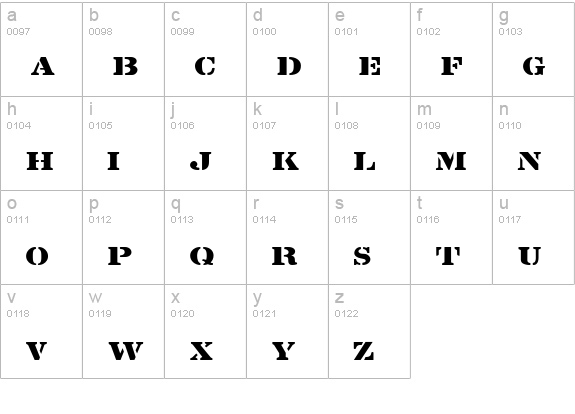
Lintsec Medium is a balanced, medium-weight variant in the Lintsec typeface family \xE2\x80\x94 well suited to sub-headlines, navigation, and balanced editorial work.
Lintsec Medium font is a sleek and modern typeface that exudes sophistication and elegance. With its clean lines and balanced proportions, this font is perfect for a wide range of design projects, from branding to editorial layouts. The medium weight of Lintsec provides a harmonious balance between readability and impact, making it a versatile choice for both digital and print applications. What's even better is that Lintsec Medium font is available for free download at FontsMarket.com. Now you can elevate your design projects with this stylish and professional font without breaking the bank. Don't miss out on the opportunity to enhance your typography game with Lintsec Medium font – download it today and take your designs to the next level!